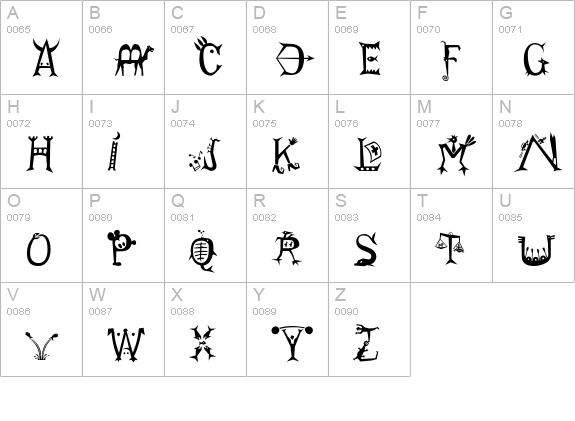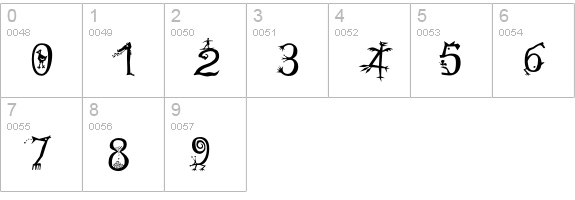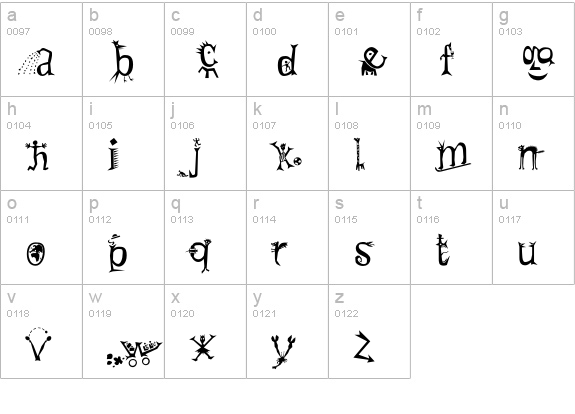
PriskaSerif-LittleCreatures font is a whimsical and charming typeface that brings a touch of playfulness to any project. Inspired by the world of little creatures and fantasy, this font features intricate details and unique character designs that are sure to captivate your audience. Perfect for children's books, greeting cards, or any creative project that needs a touch of magic. The PriskaSerif-LittleCreatures font is freely available to download at FontsMarket.com, making it easy for designers and creators to add a touch of whimsy to their work without breaking the bank. Whether you're looking to create an enchanting design or simply add a bit of fun to your project, PriskaSerif-LittleCreatures font is the perfect choice. Download it today and let your imagination run wild!